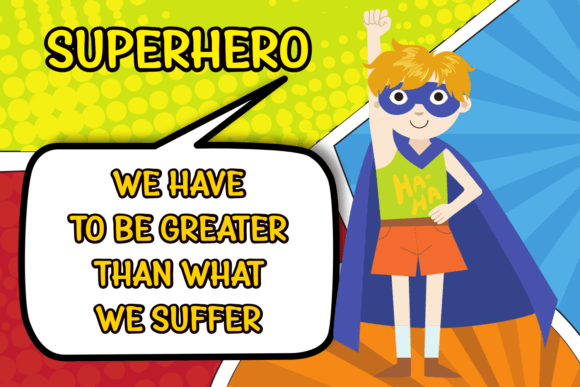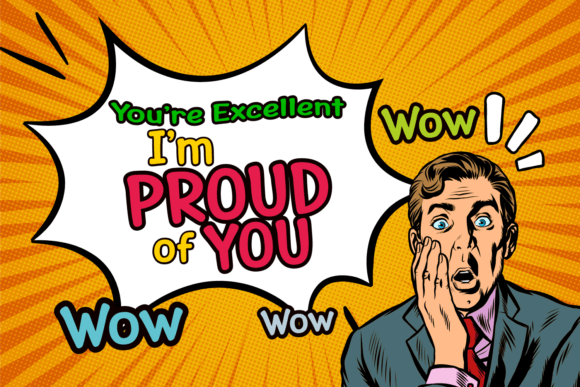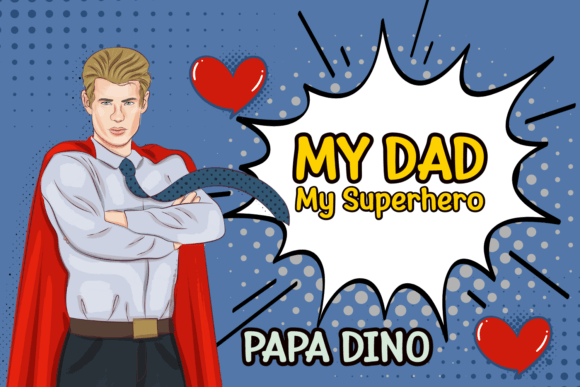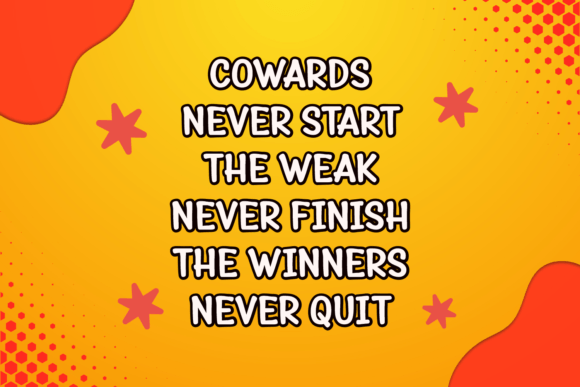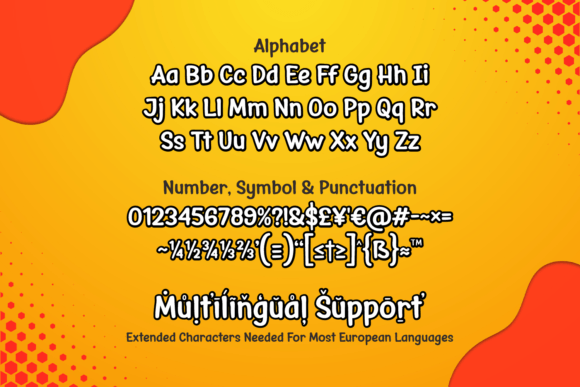
Hello Comics Font: The Ultimate Guide to Adding a Playful Touch to Your Designs
Are you looking for a font that can add a playful and lively touch to your designs? Look no further than the Hello Comics Font! This fun and exciting font is perfect for creating comic-style text that’s sure to capture the attention of your audience. In this article, we’ll take a closer look at the Hello Comics Font, its features, and how you can use it to take your designs to the next level.
What is Hello Comics Font?
Hello Comics is a playful and lively font that’s perfect for creating fun and exciting comic-style text. The letters are bold, easy to read, and have a friendly, cartoonish feel, making it great for kids’ projects, comics, or anything that needs a cheerful touch. This font is designed to bring a smile to your reader’s face, and it’s perfect for designers, crafters, and anyone who wants to add a bit of whimsy to their work.
Key Features of Hello Comics Font
The Hello Comics Font has several key features that make it stand out from other fonts. Some of its notable features include:
- Bold and Easy to Read: The letters in the Hello Comics Font are bold and easy to read, making it perfect for headlines, titles, and other text that needs to stand out.
- Playful and Lively: The font has a playful and lively feel that’s perfect for creating fun and exciting comic-style text.
- Cartoonish Feel: The font has a friendly, cartoonish feel that’s perfect for kids’ projects, comics, or anything that needs a cheerful touch.
- Versatile: The Hello Comics Font is versatile and can be used for a wide range of projects, from digital designs to print materials.
Design Ideas Using Hello Comics Font
The Hello Comics Font is a versatile font that can be used for a wide range of projects. Here are some design ideas to get you started:
- Kids’ Projects: The Hello Comics Font is perfect for kids’ projects, such as educational materials, activity sheets, and coloring books.
- Comics and Graphic Novels: The font is great for creating comic-style text for comics and graphic novels.
- Social Media Graphics: Use the Hello Comics Font to create fun and engaging social media graphics, such as quote graphics, memes, and more.
- Party Invitations: The font is perfect for creating playful and fun party invitations for kids’ birthday parties or other celebrations.
- Digital Designs: Use the Hello Comics Font in digital designs, such as ebooks, presentations, and more.
Tips and Tricks for Using Hello Comics Font
Here are some tips and tricks for using the Hello Comics Font:
- Use it Sparingly: While the Hello Comics Font is fun and playful, it can be overwhelming if used too much. Use it sparingly to add a touch of whimsy to your designs.
- Experiment with Colors: The font looks great in bright and bold colors. Experiment with different colors to find the perfect combination for your design.
- Pair it with Other Fonts: The Hello Comics Font pairs well with other fonts, such as sans-serif fonts. Experiment with different font combinations to find the perfect pairing.
The Hello Comics Font is a playful and lively font that’s perfect for adding a fun and exciting touch to your designs. With its bold and easy-to-read letters, friendly cartoonish feel, and versatility, it’s great for kids’ projects, comics, or anything that needs a cheerful touch. By following the tips and tricks outlined in this article, you can use the Hello Comics Font to take your designs to the next level and create engaging and fun designs that capture the attention of your audience.